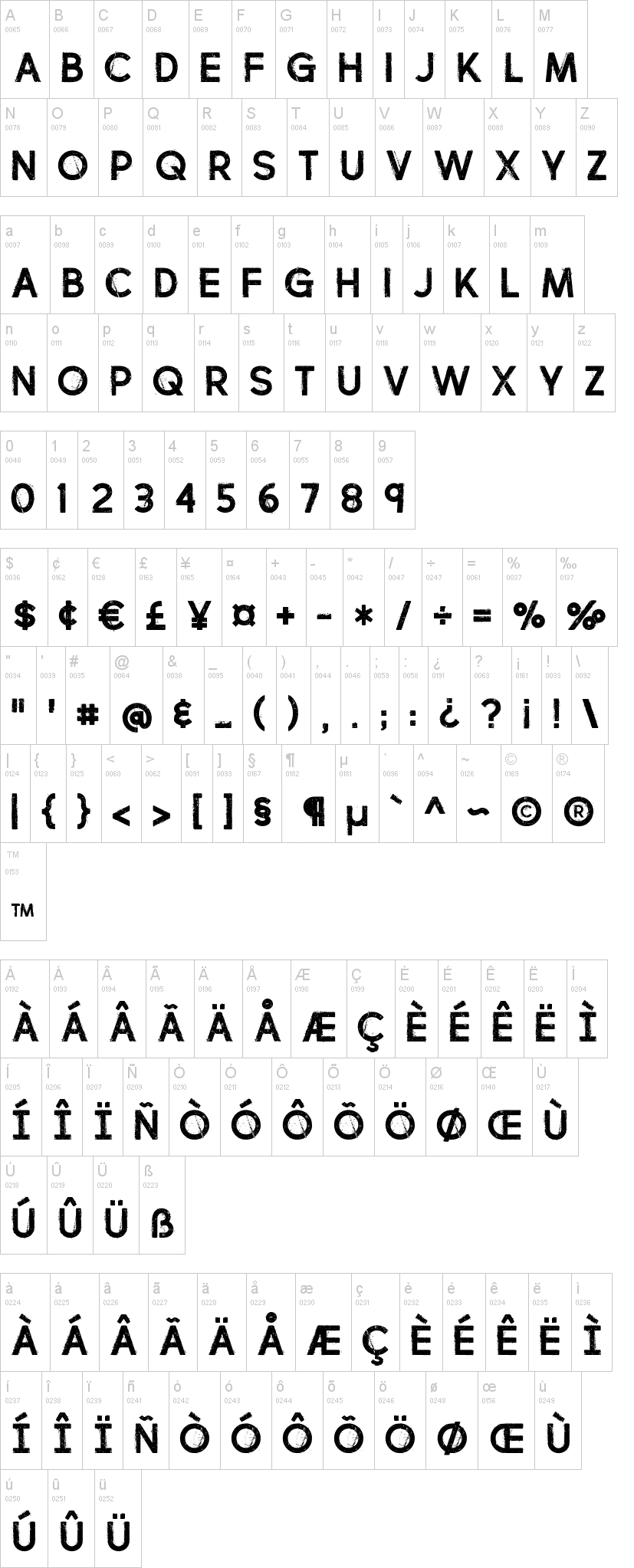
Note of the authorCharbroil is a distressed all-caps font with alternates. Mix and match between the upper and lowercase for a custom look. Great for logos and headlines!